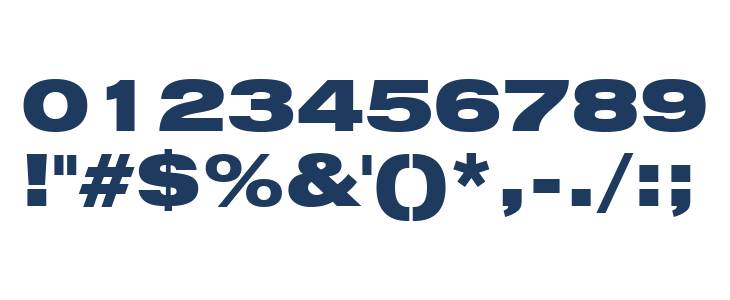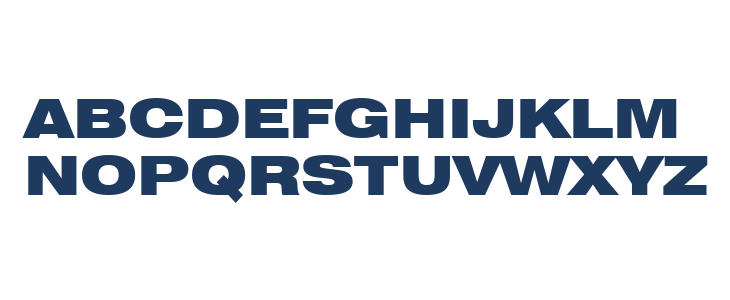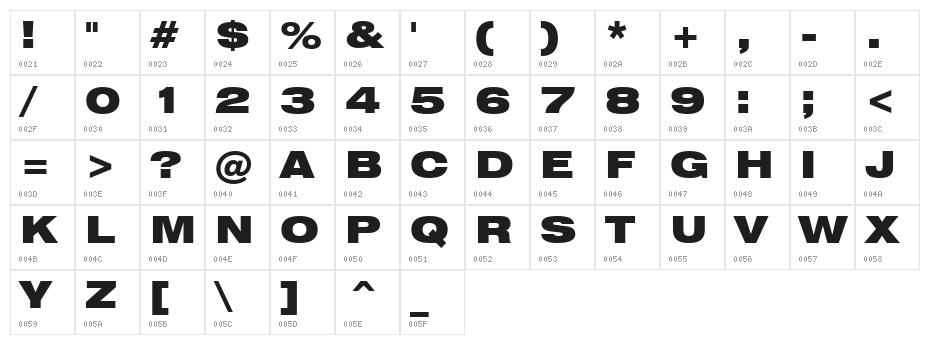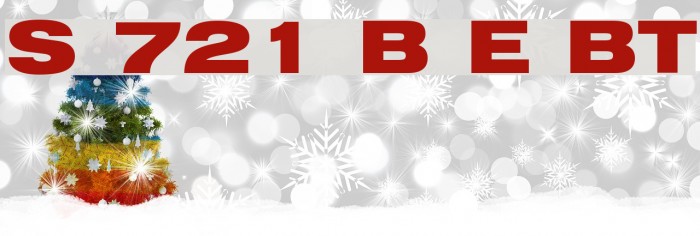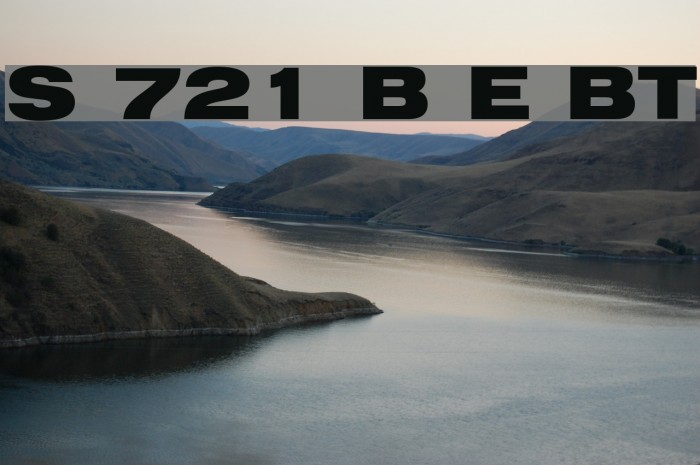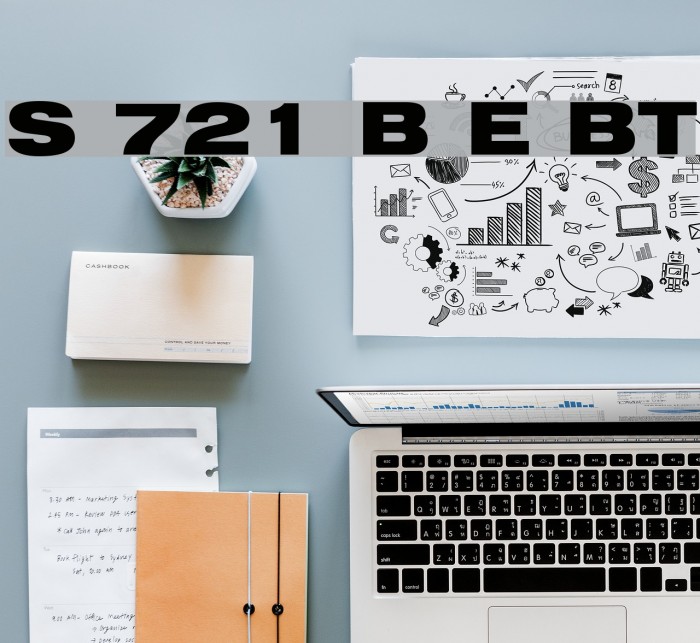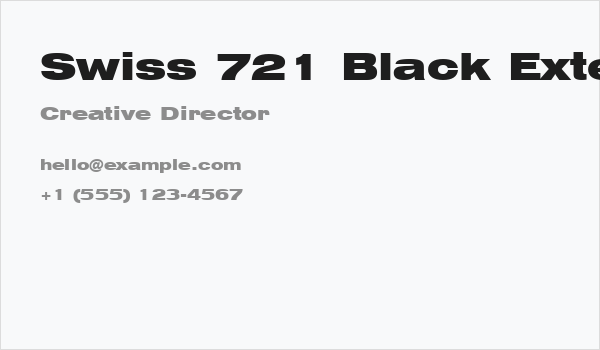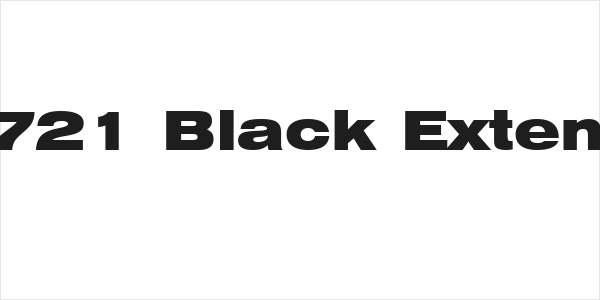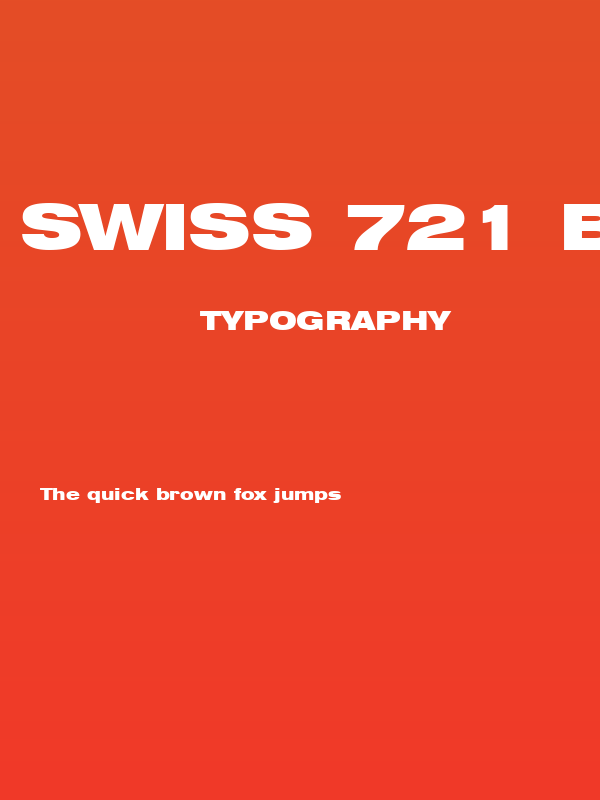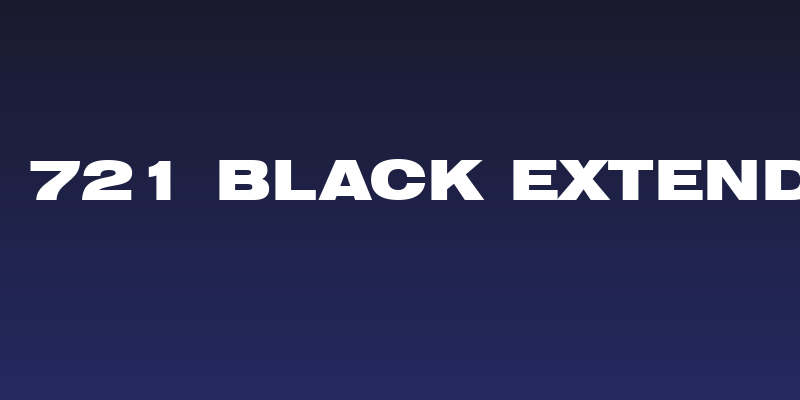
Swiss 721 Black Extended BT Font
Swiss 721 Black Extended BT Description
This typeface is a bold and extended sans-serif font that exudes strength and modernity. Its characters are robust and wide, providing a commanding presence on any page. The uppercase and lowercase letters maintain a consistent weight, ensuring readability and uniformity. The numerals are clear and distinct, making them suitable for various applications. Special characters are designed with the same boldness, integrating seamlessly with the rest of the font. The overall design is clean and straightforward, making it versatile for both digital and print media.